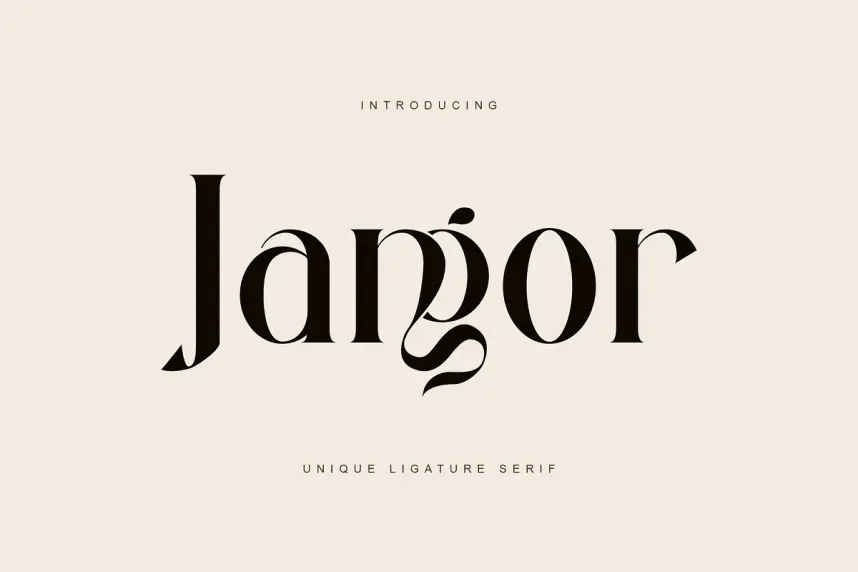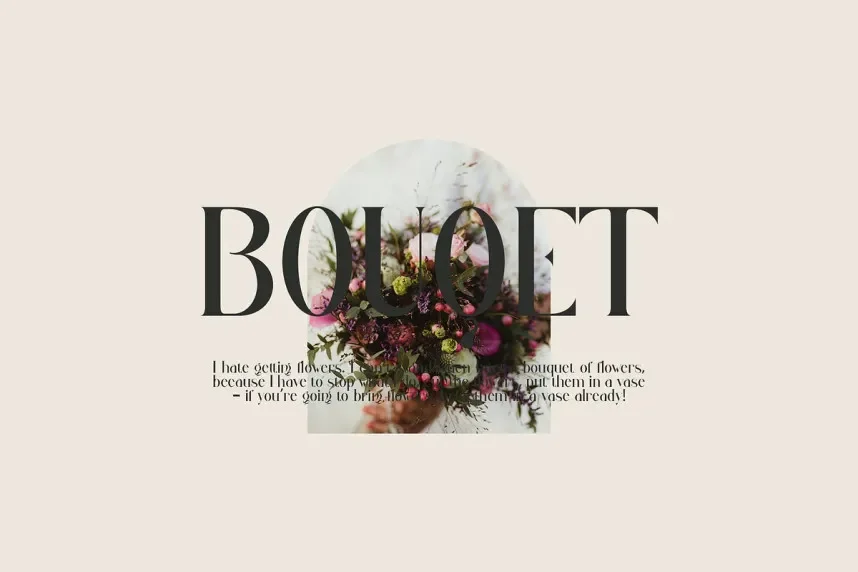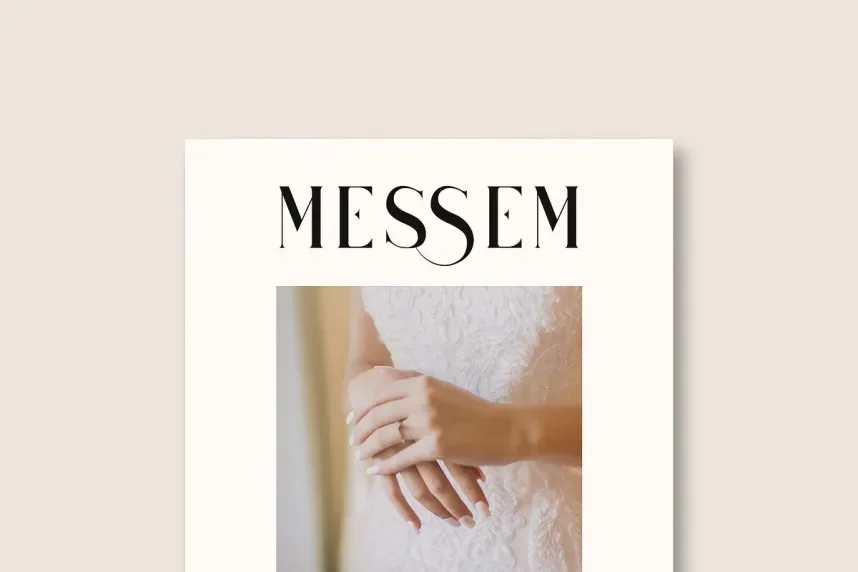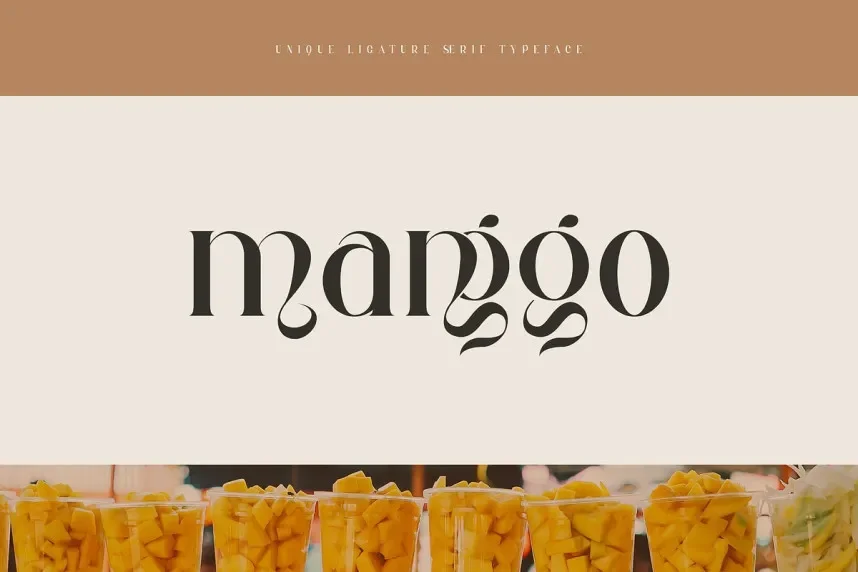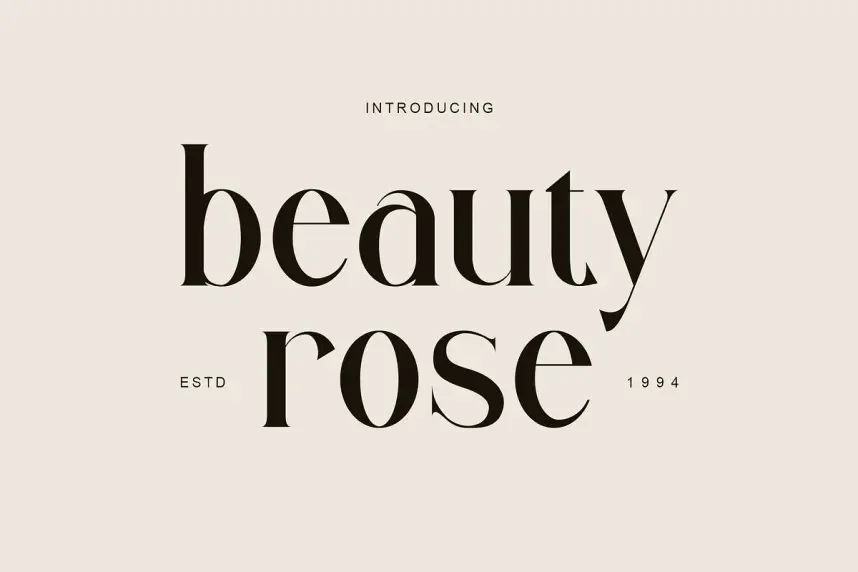
Jangor Font is a unique, display typeface with a bold, artistic design. Its strong, angular letterforms make it stand out in creative projects that require a modern, edgy feel, such as music branding, event posters, and social media designs.